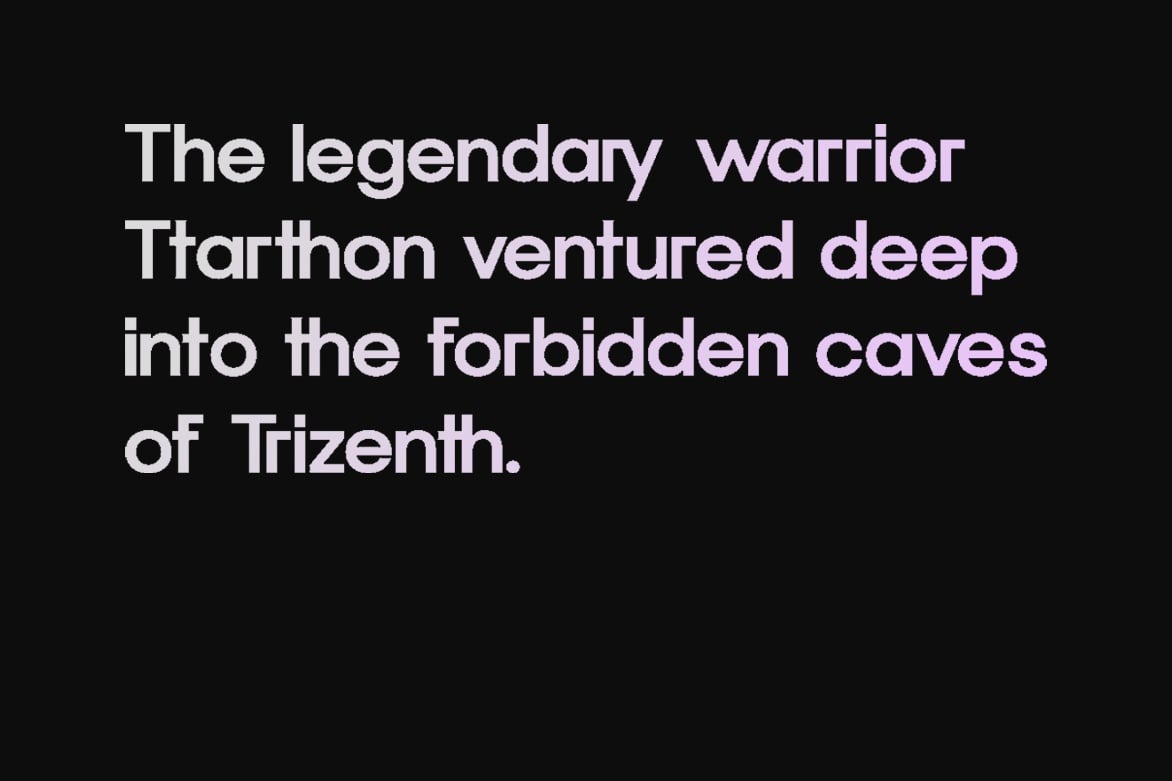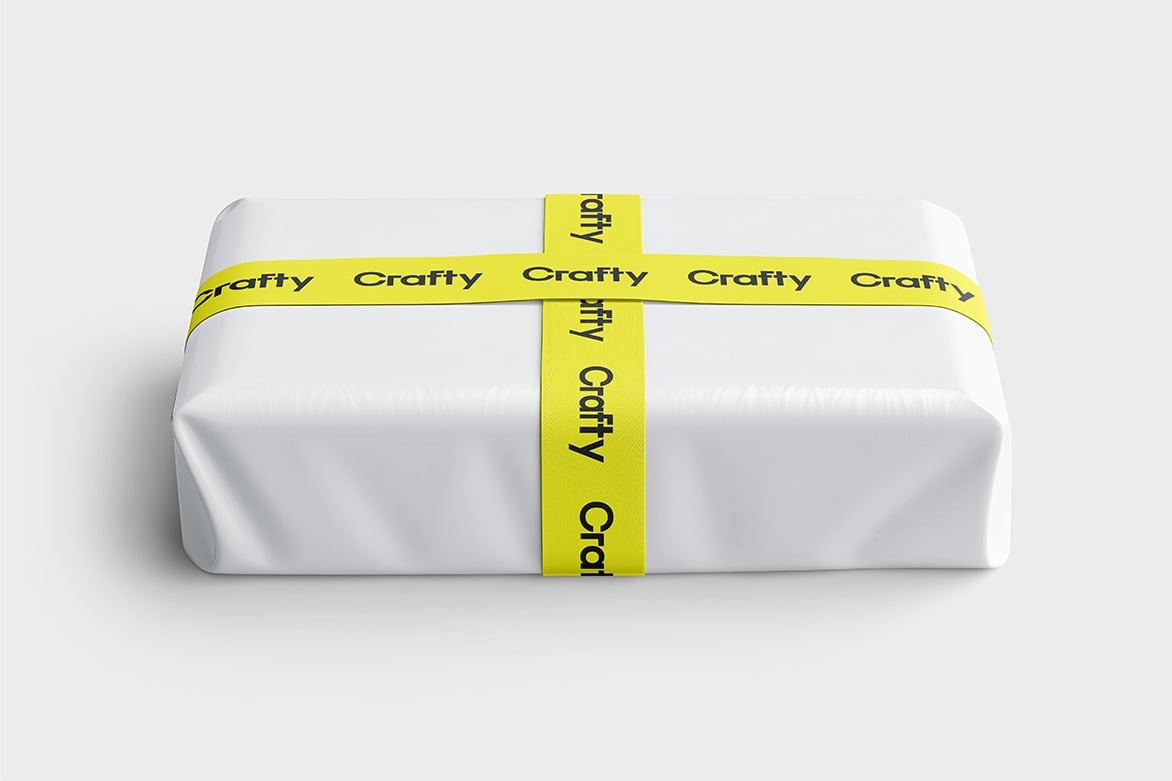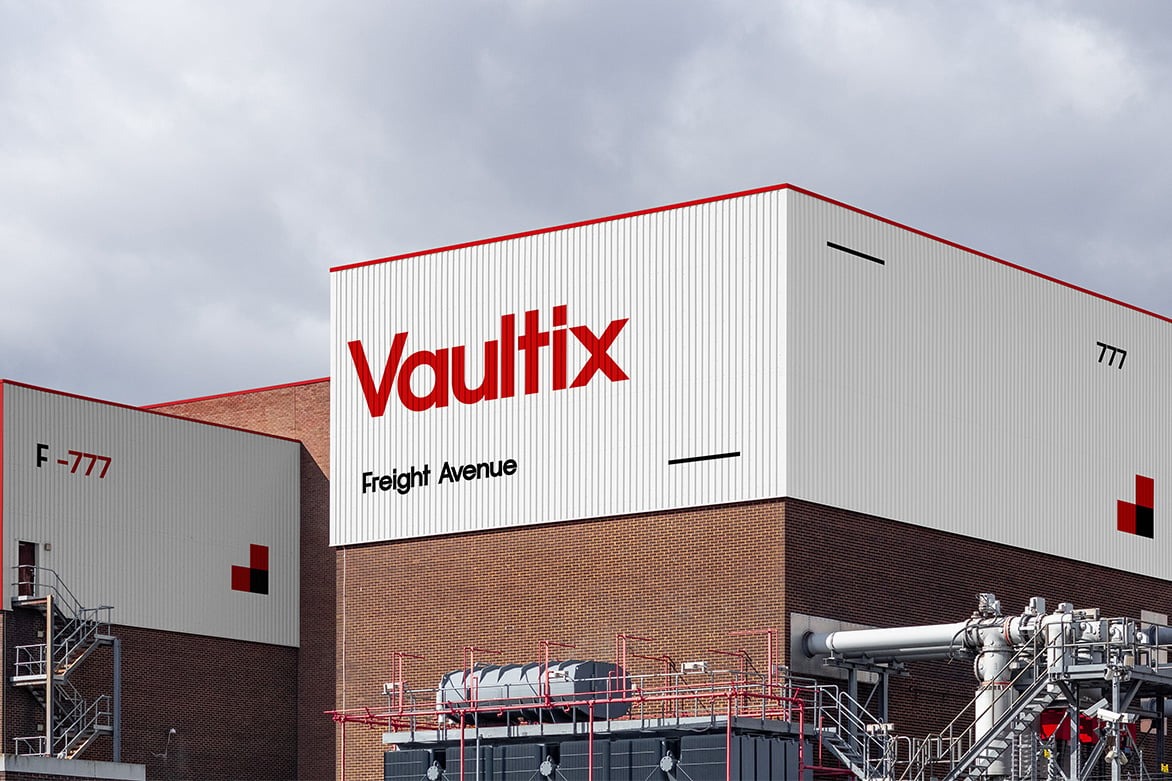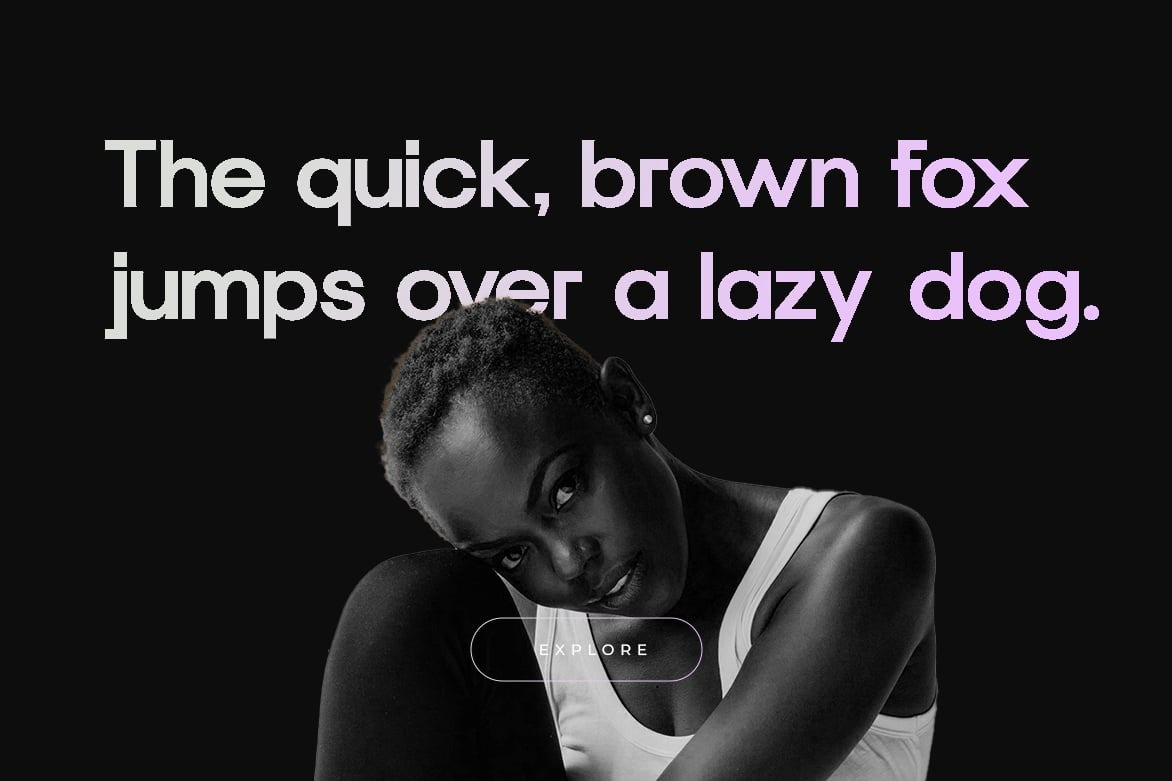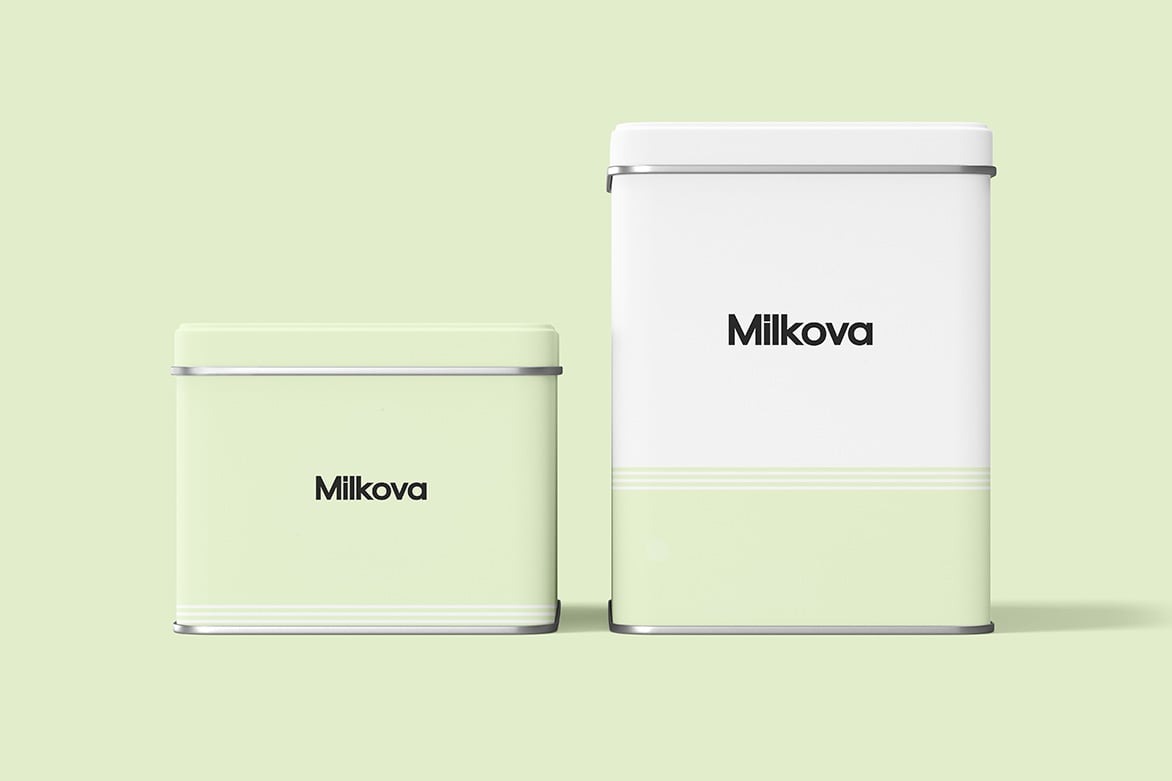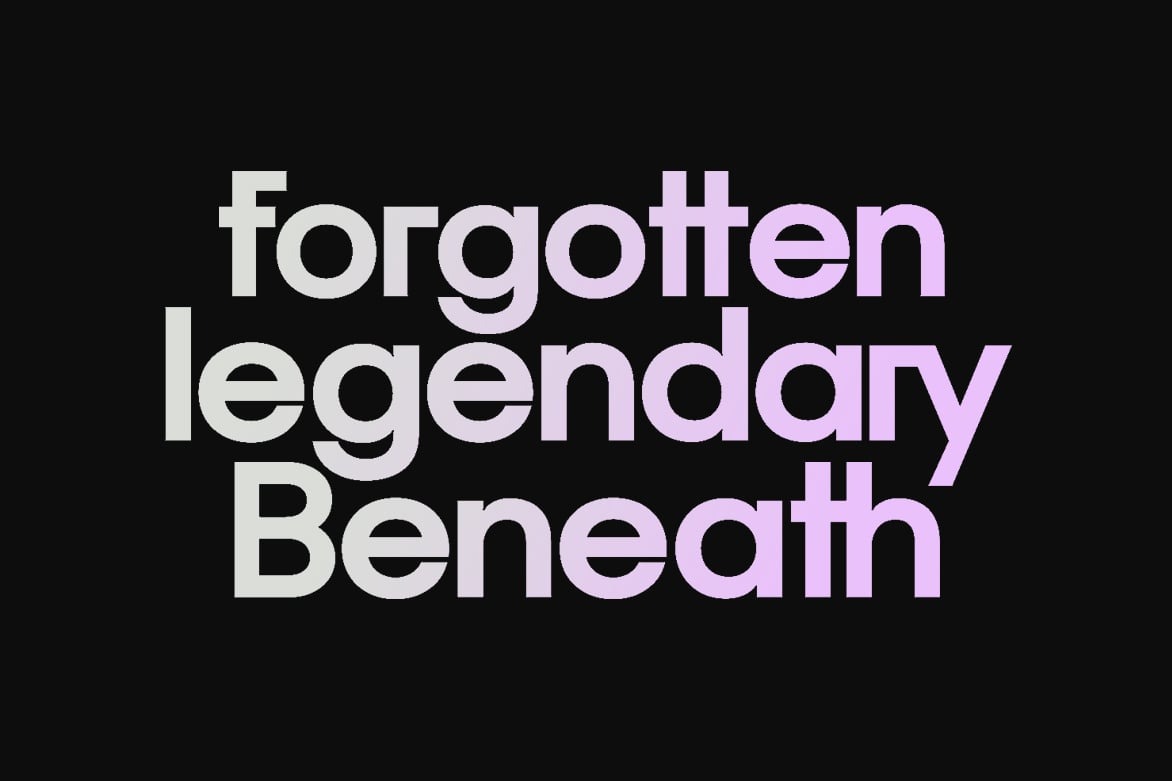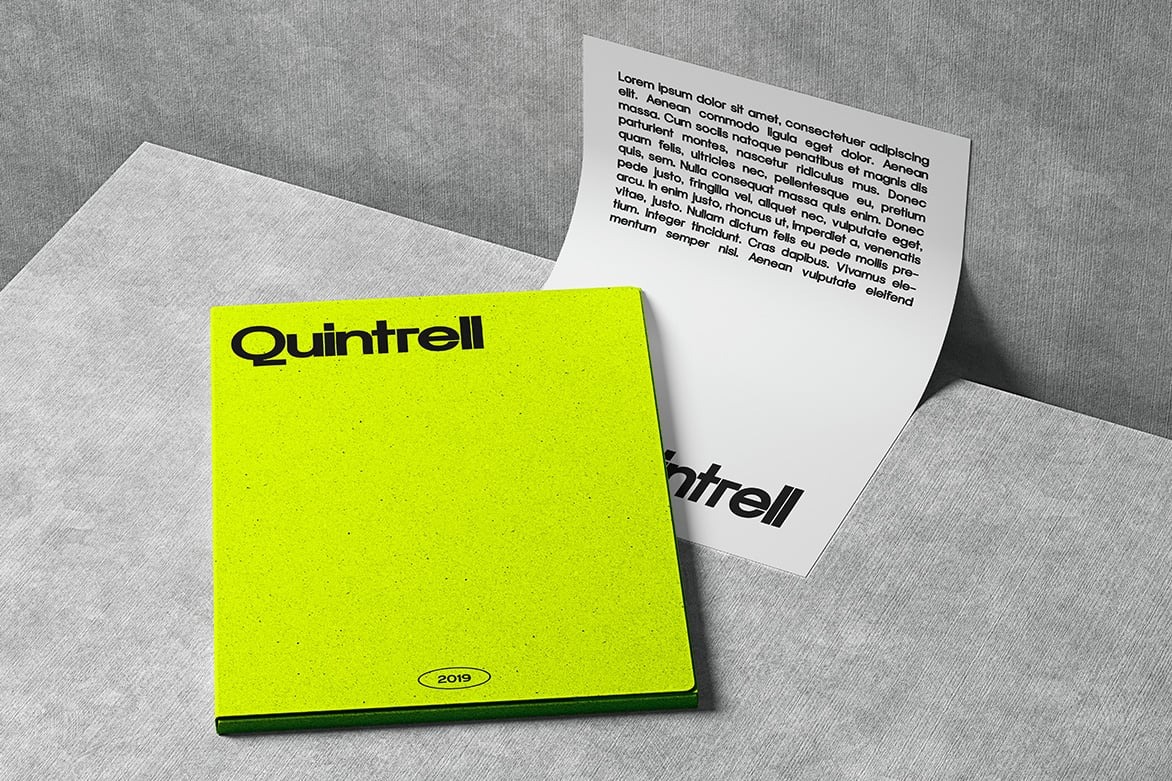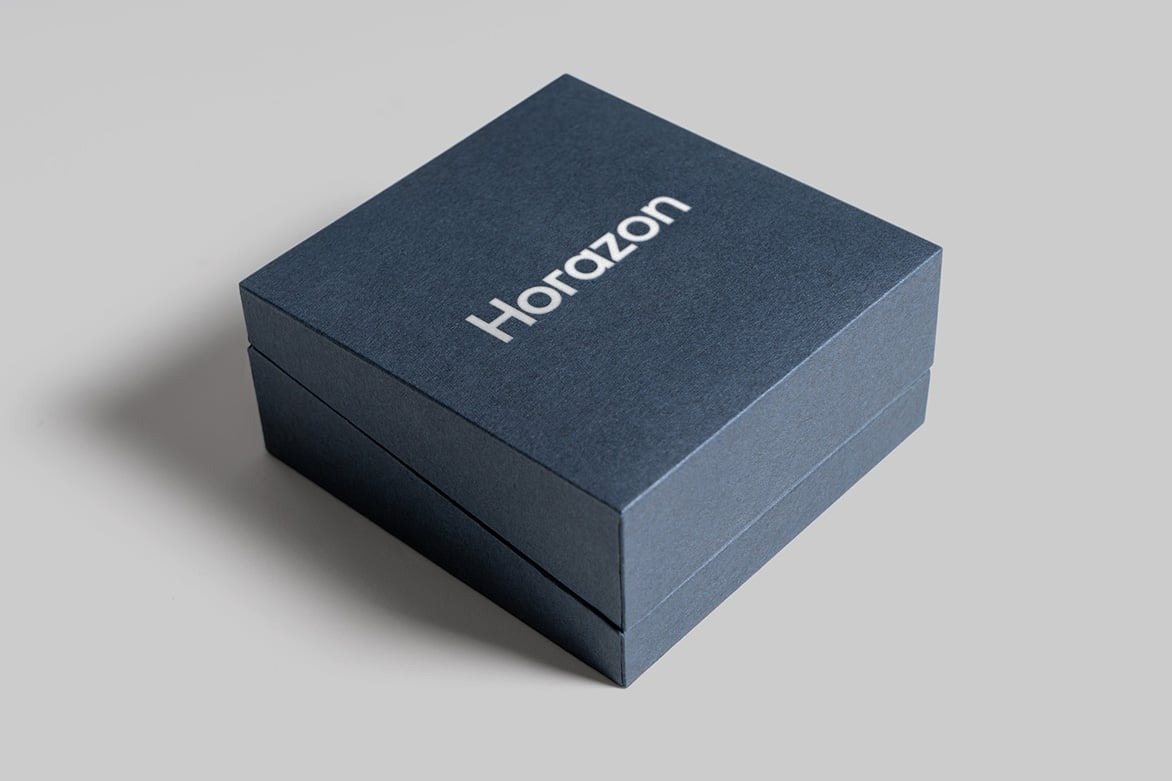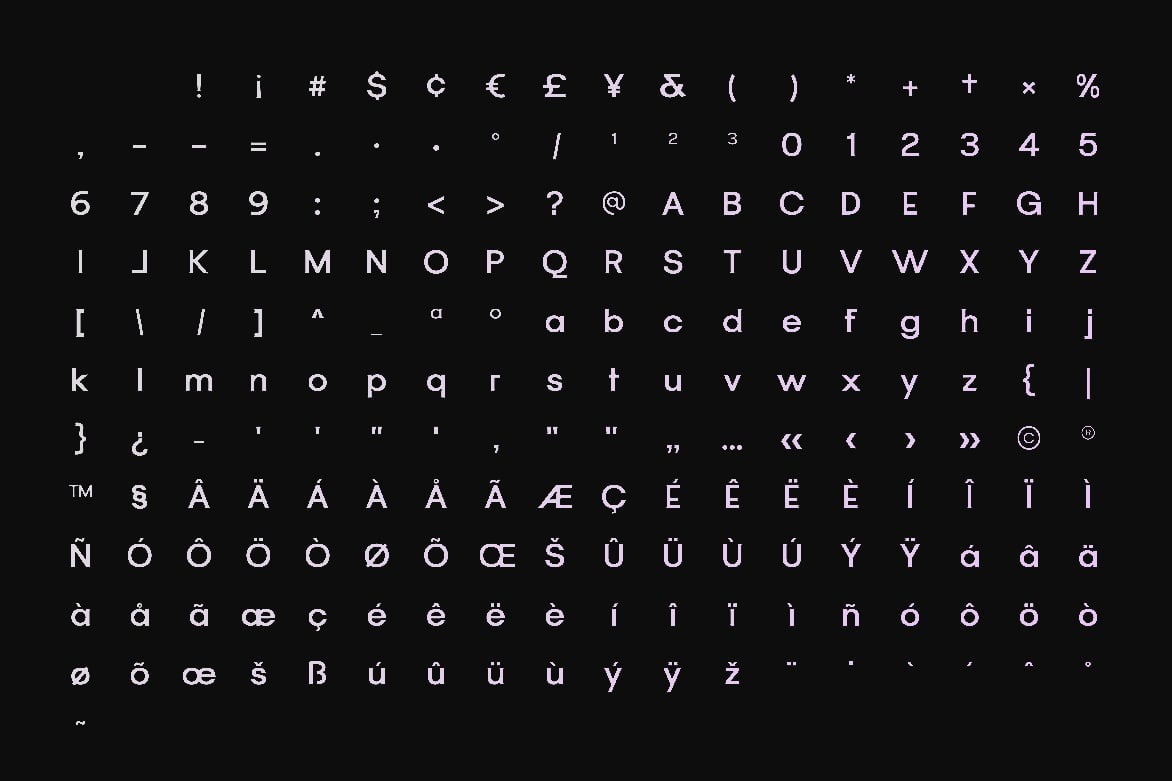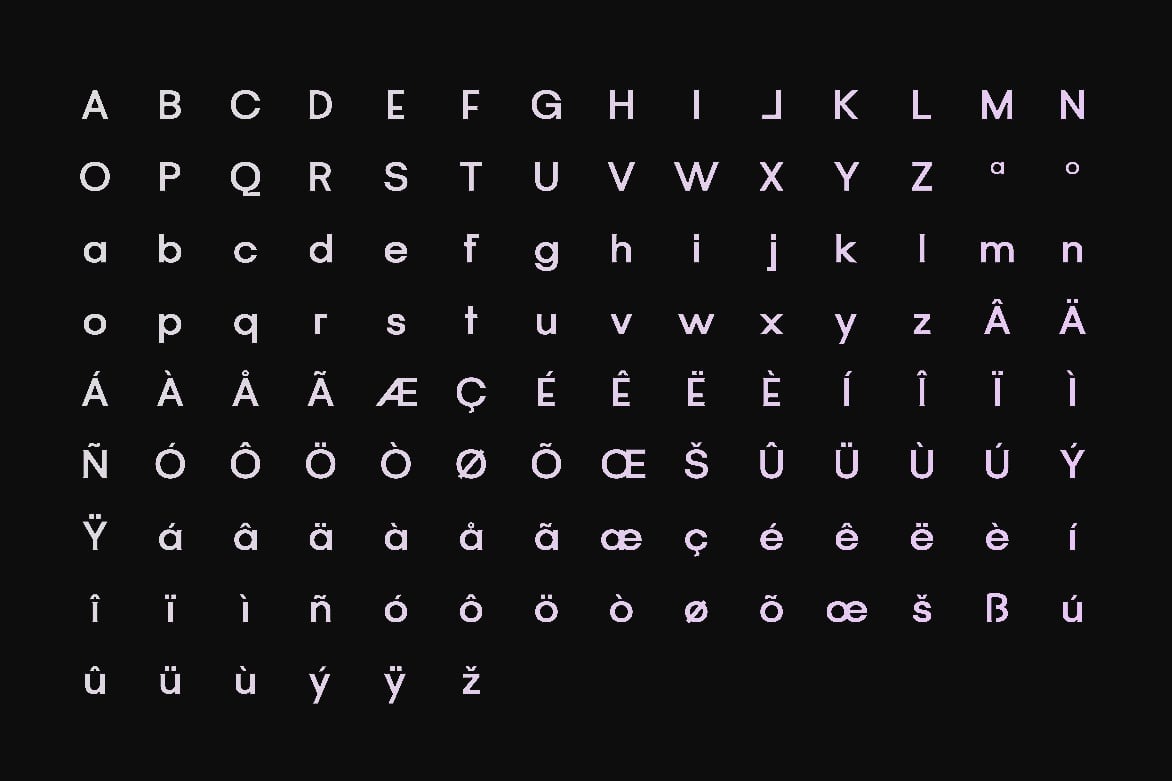
Neutrek – Display Sans-Serif Font family
The Neutrek font family is a contemporary sans-serif typeface designed for versatility and elegance. With its clean lines, balanced proportions, and minimalist aesthetic, Neutrek ensures high readability across various mediums. Whether used for branding, editorial design, UI/UX interfaces, or print, this font brings a refined, world-class look to your projects.